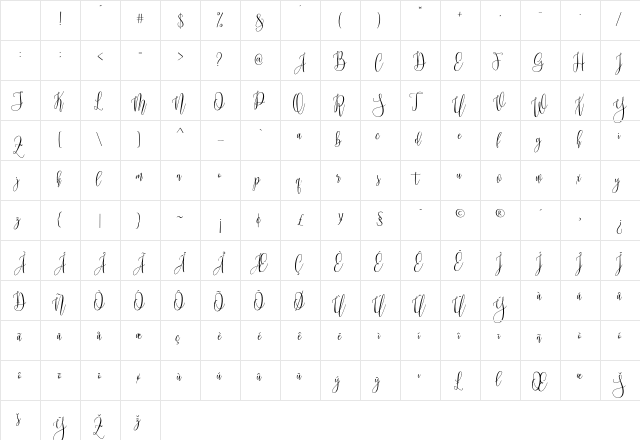
Complete Mollinda Script Demo Regular glyph index. Displaying only characters natively supported by Mollinda Script Demo Regular font.
Mollinda Script Demo flows with the natural rhythm of handwritten lettering, making it ideal for designs that call for warmth and personal expression.
Font Pairing: Combine Mollinda Script Demo with a simple geometric sans for maximum contrast - the tension between flowing curves and clean structure is a classic typographic pairing.
Pro Tip: Use Mollinda Script Demo for short runs of text - names, titles, or taglines. Extended body copy in script faces tires the eye quickly.